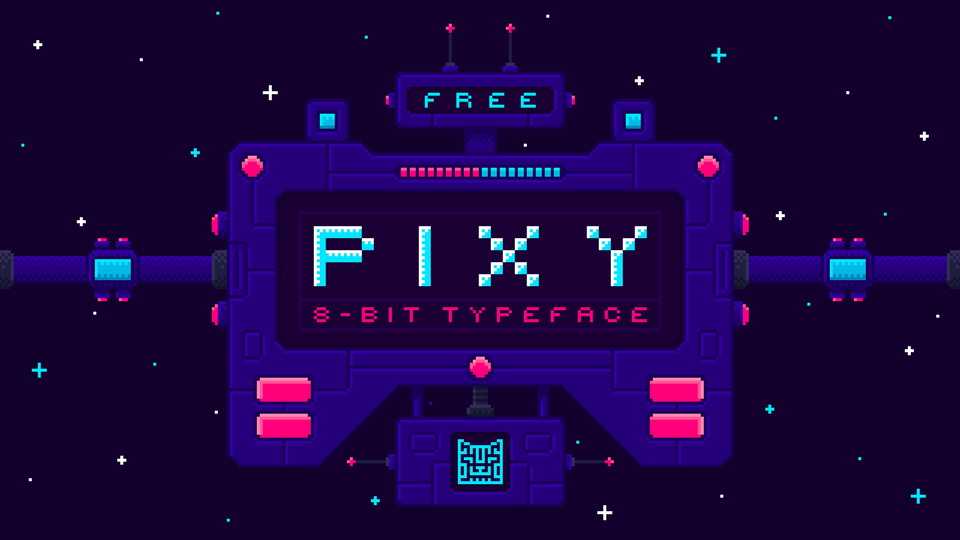
Download Pixy font, a 8-bit pixel typeface designed to back all of that 80s nostalgia. Pixy font supports Latin and Cyrillic and is perfect for making something look retro cool.
Designer: 2DFUNS Studio